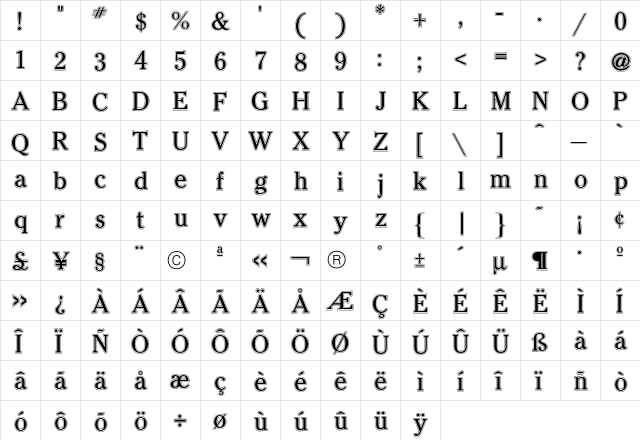
Cheltenham Contour
Design Context for Cheltenham Typeface
Cheltenham is a composed and adaptable typeface that performs quietly and consistently across a wide range of design contexts.